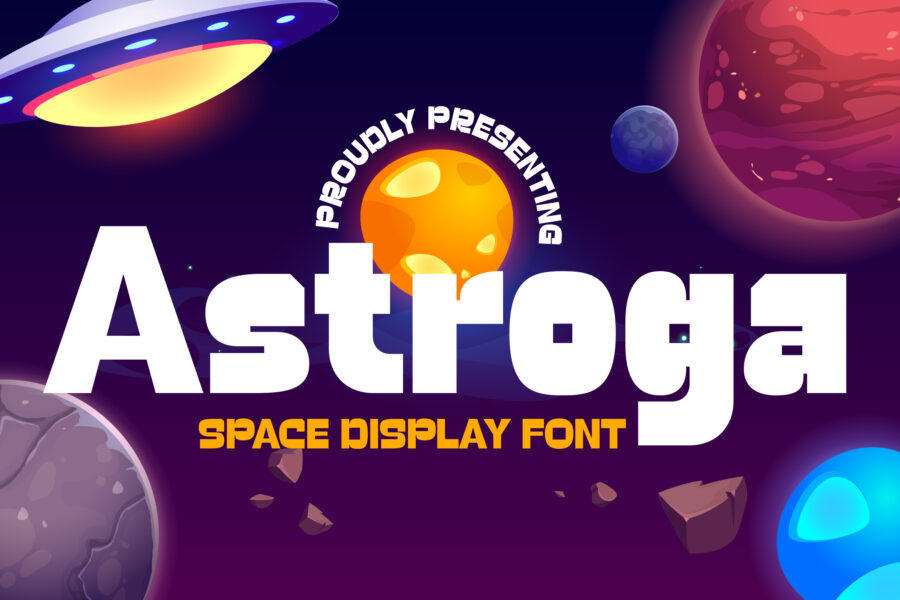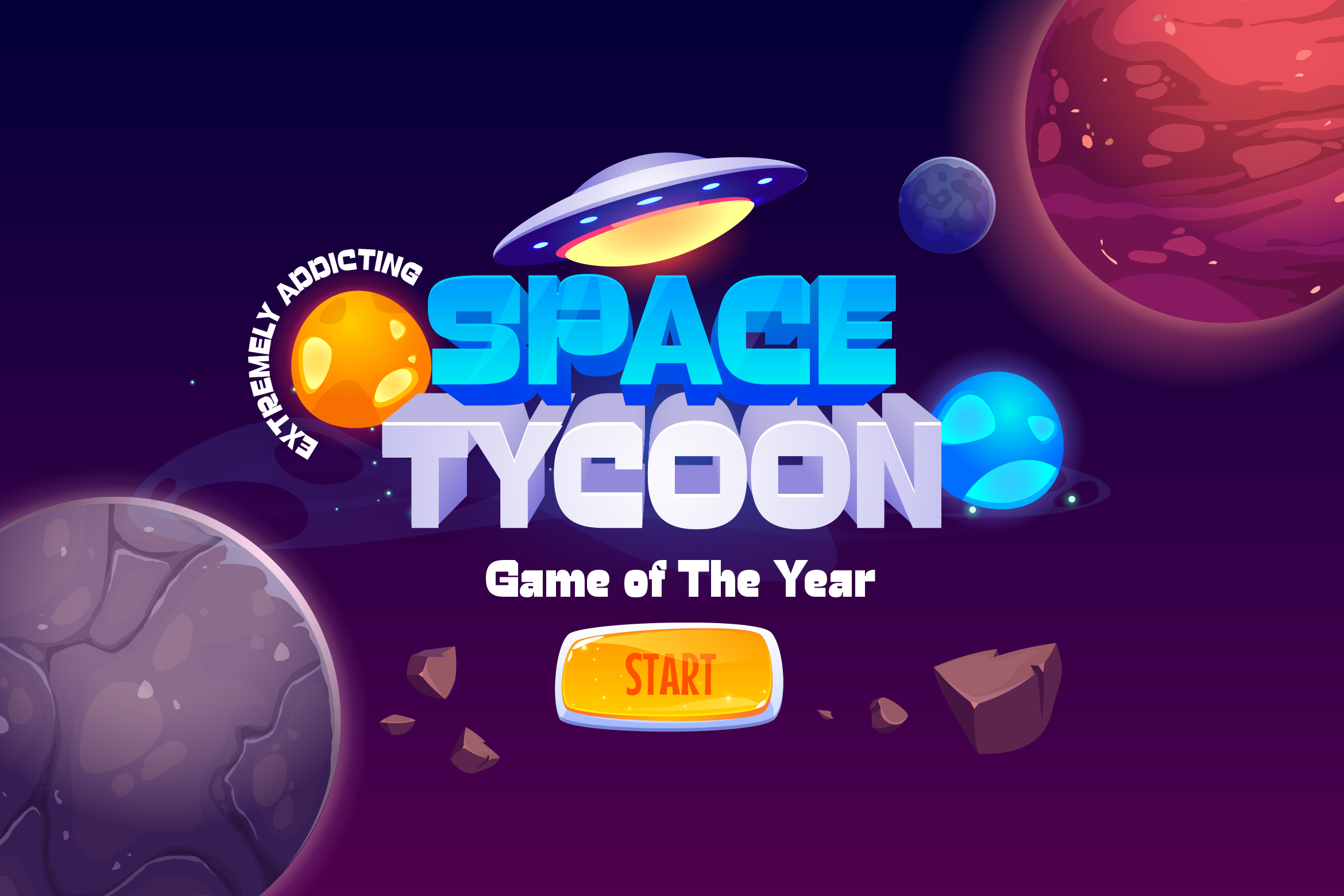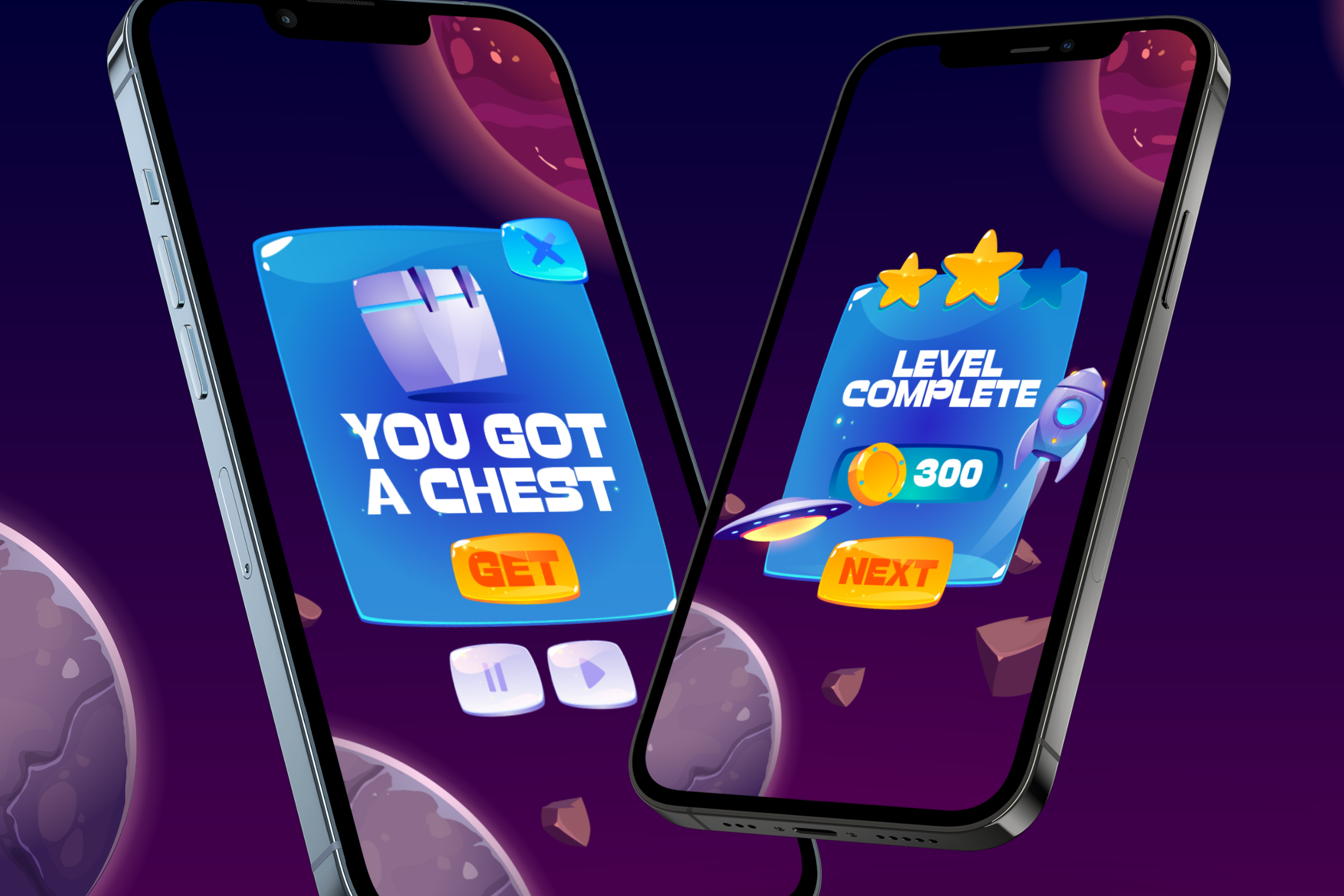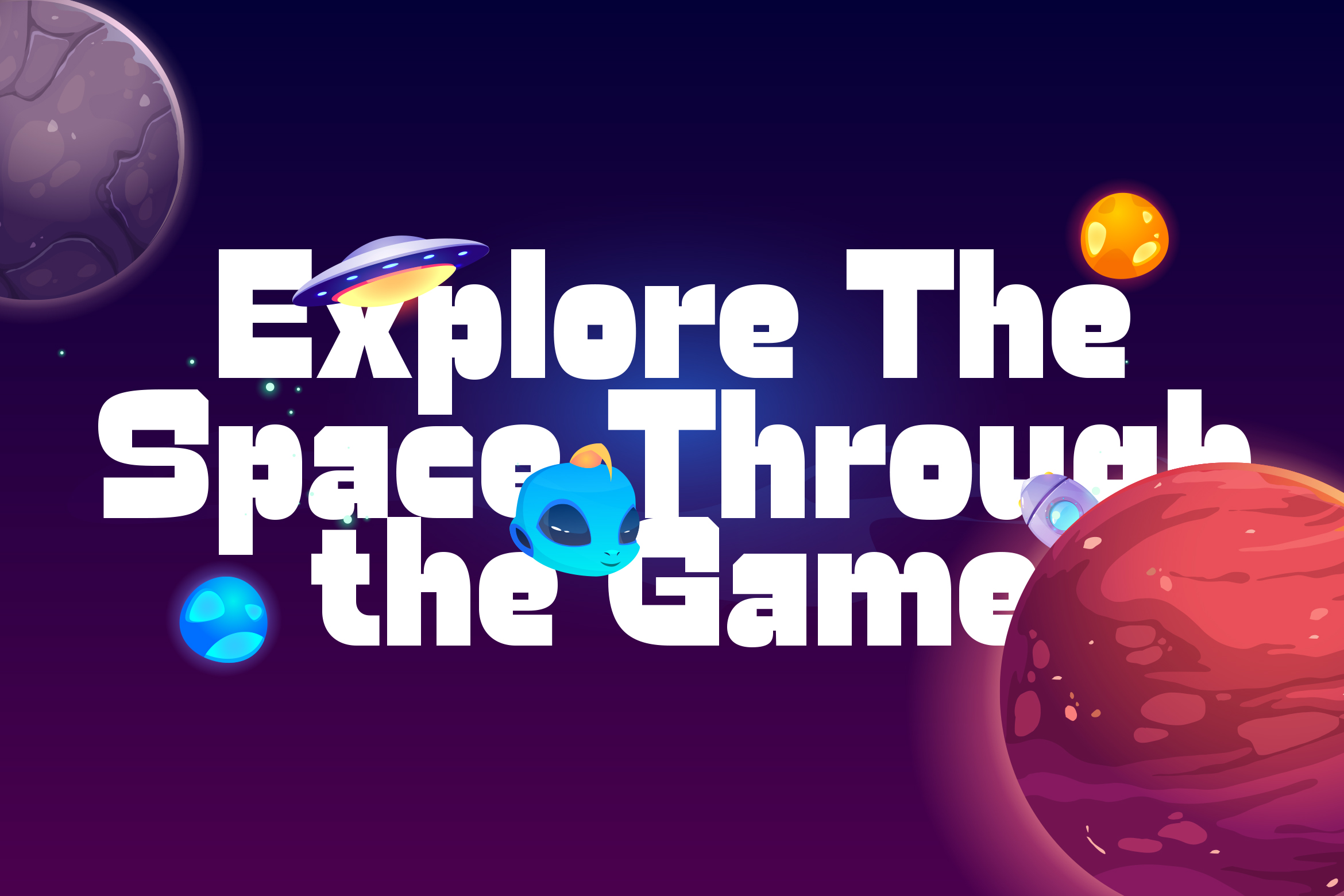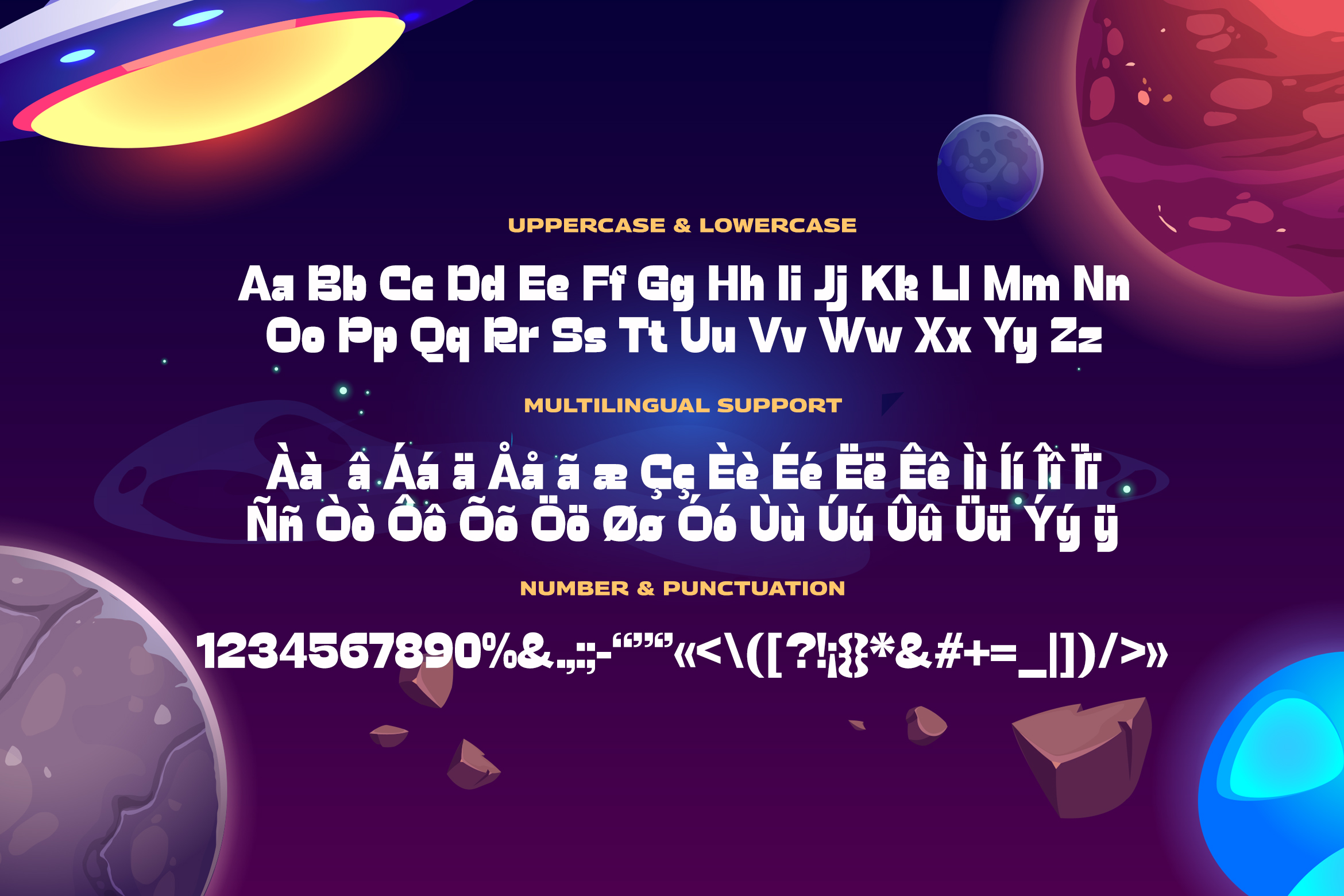
Astroga is a bold and playful space display font designed to elevate your sci-fi or intergalactic-themed projects. With its thick, geometric letterforms and subtle futuristic edges, Astroga captures the adventurous spirit of outer space, making it perfect for game titles, mobile UI, cartoons, or kids’ content. This typeface creates a sense of motion and energy, ideal for headlines that need to grab attention in vibrant and dynamic layouts.
The font includes uppercase, lowercase, numbers, punctuation, and multilingual support to accommodate a wide range of creative uses. Whether you’re designing a cosmic game interface, an educational space app, or fun promotional material, Astroga offers versatility with a bold impact. Its cheerful and animated style adds a futuristic charm to your visuals, especially when paired with colorful, galactic illustrations.
Astroga